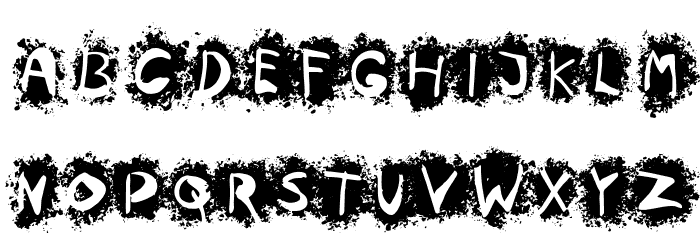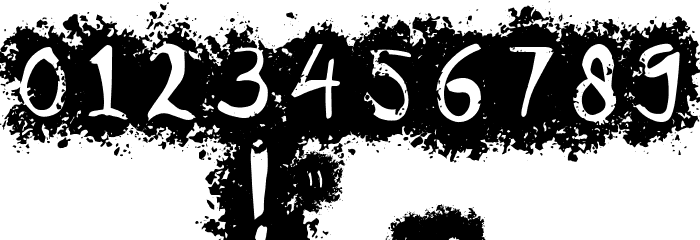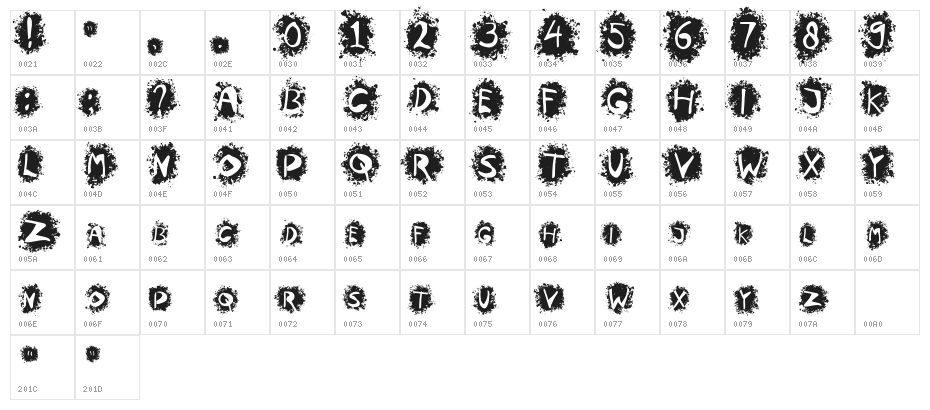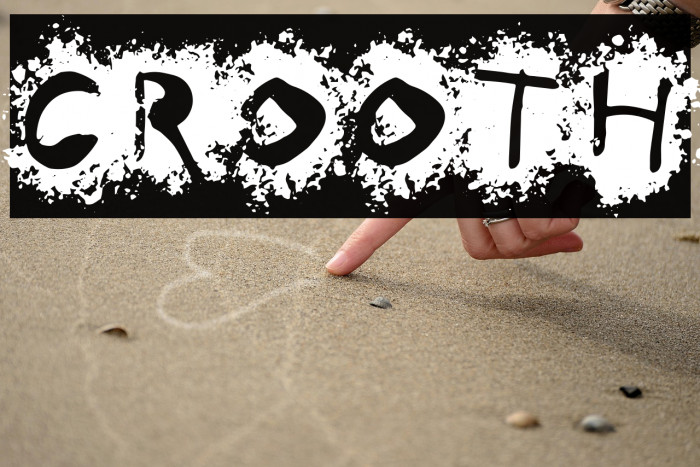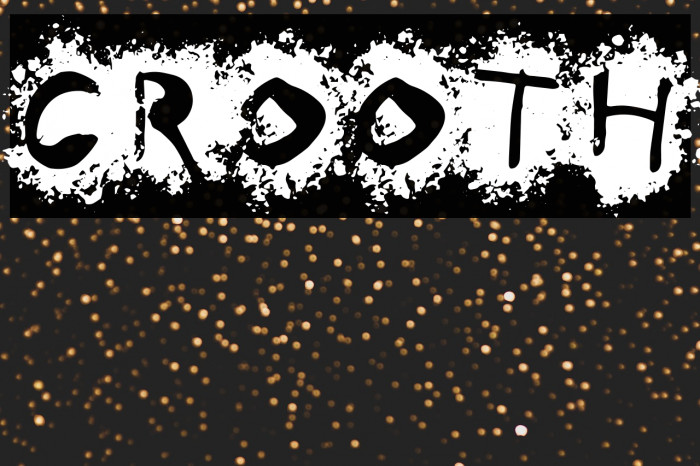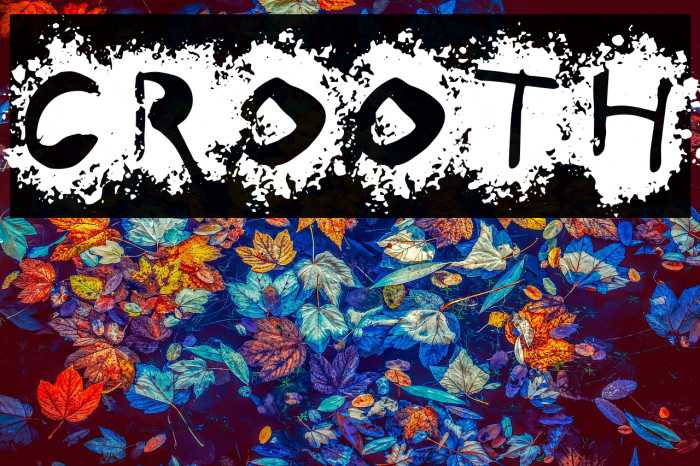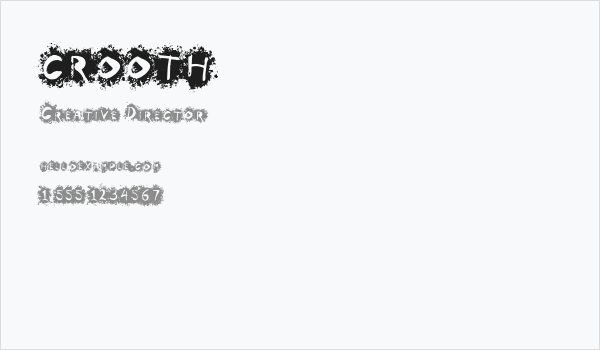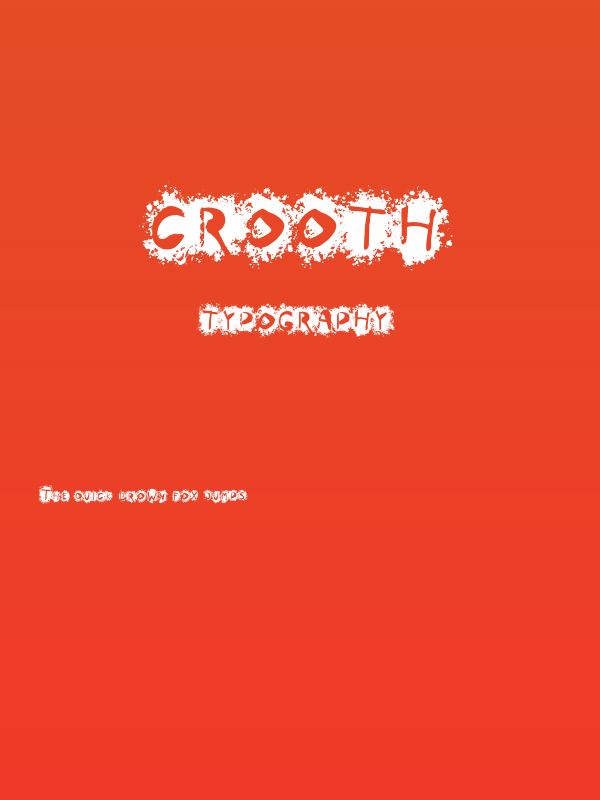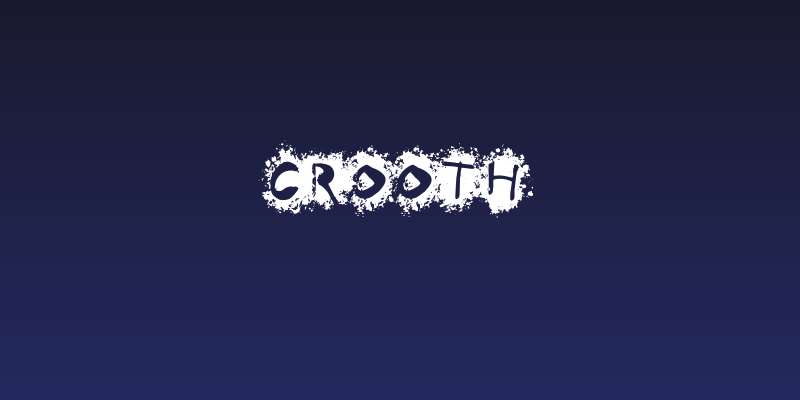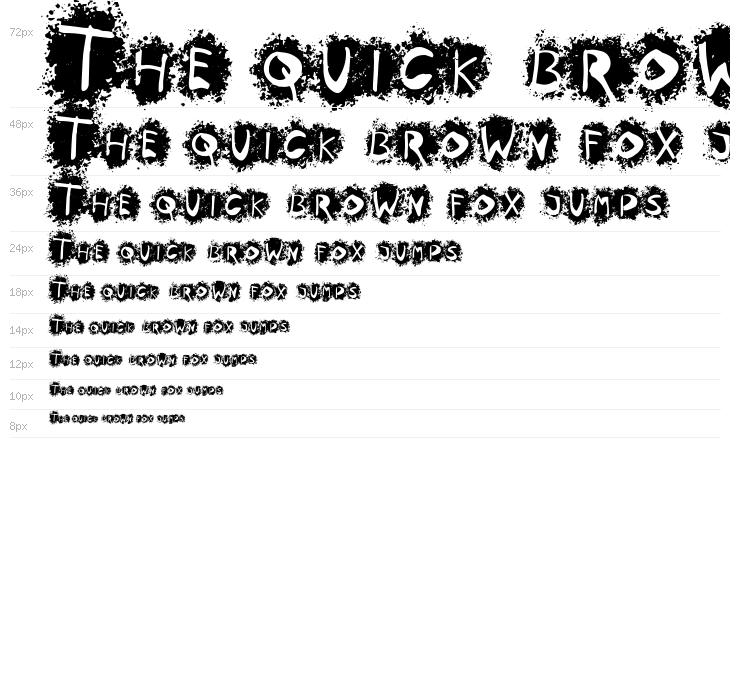
CROOTH Font
This font features a bold and dynamic design with a distressed, grunge-like texture that gives it a unique and edgy appearance. The characters are set against a splattered background, creating a sense of movement and energy. Each letter is crafted with irregular edges and varying thickness, contributing to its raw and artistic feel. The font maintains legibility while offering a visually striking style that stands out in any design. Its playful yet rebellious nature makes it suitable for projects that aim to capture attention and convey a sense of creativity and boldness.
A bold, grunge-style font with a distressed, artistic texture.
- Proposed Projects: Ideal for music album covers, streetwear branding, event posters, and creative digital art.